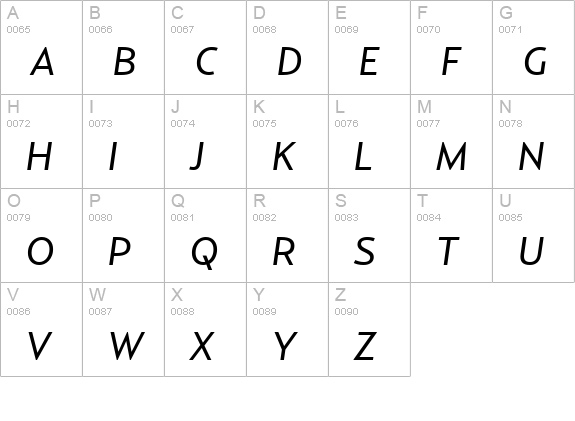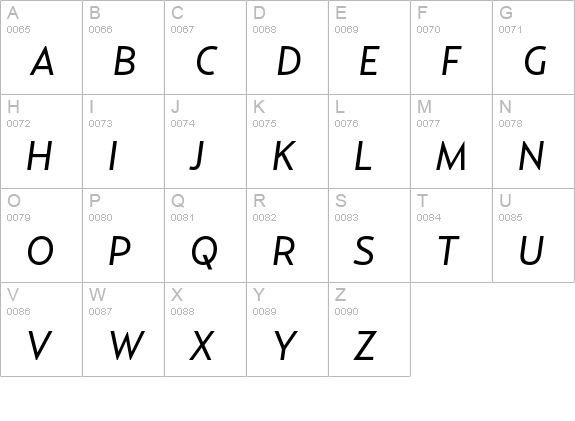
Relay-RegularItalic is an elegant and sophisticated font that adds a touch of grace to any design project. With its stylish and slanted letterforms, this font exudes a sense of modernity and versatility. Its italic style adds a sense of movement and dynamism, making it perfect for adding emphasis or creating eye-catching headlines. What sets Relay-RegularItalic apart is the fact that it is not only visually appealing but also freely available to download. FontsMarket.com offers this font as a free download, allowing designers, creatives, and typographers to access its beauty without any cost. This generosity makes Relay-RegularItalic accessible to a wide range of individuals, regardless of their budget or design requirements. Whether you're working on a branding project, a website design, or a print layout, Relay-RegularItalic is a font that will elevate your work to new heights. Its clean and legible letterforms ensure readability in both small and large sizes, while its italic styling adds an element of elegance and sophistication. This font is highly versatile and can be used across various design applications, from corporate materials to editorial layouts and everything in between. Its timeless appeal makes it suitable for both contemporary and classic designs, allowing for endless possibilities and creative expression. So, if you're looking for a font that combines style, functionality, and the added bonus of being free, look no further than Relay-RegularItalic. Download this font from FontsMarket.com and unlock its potential to enhance your design projects with its grace and charm.